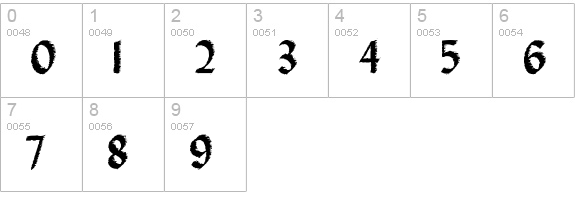
Woodbrush Font Details
Woodbrush font is a charming and versatile typeface that brings a delightful handmade feel to any design project. With its unique brush strokes and rustic appeal, this font exudes warmth and creativity. Perfect for adding a touch of personality to logos, branding, invitations, posters, and more. And the best part? Woodbrush font is completely free to download at FontsMarket.com. Embrace the natural beauty and artistic flair of Woodbrush font in your next creative endeavor and watch your designs come to life with its organic charm.